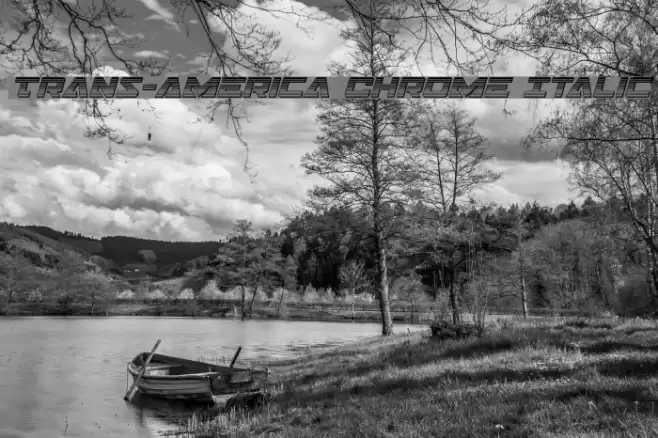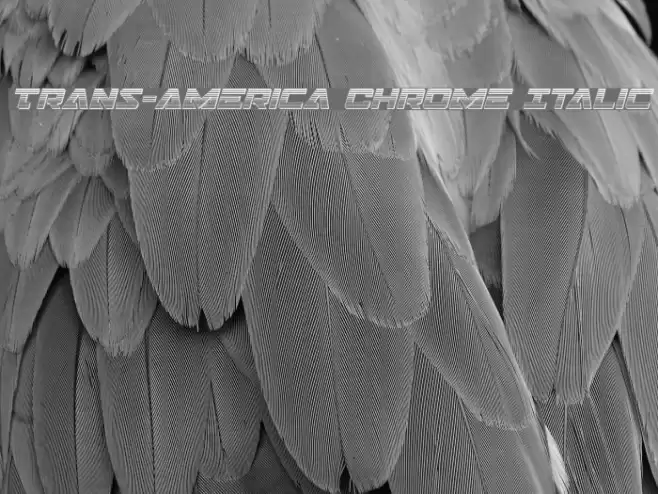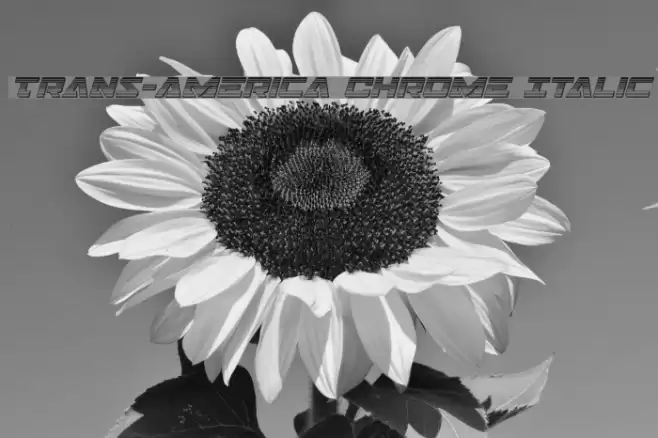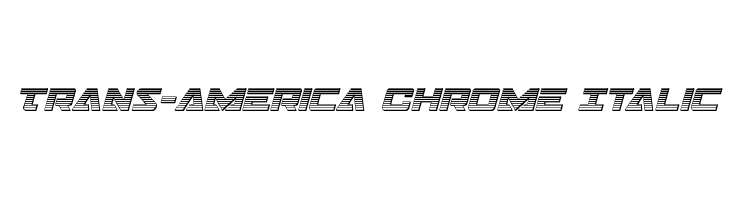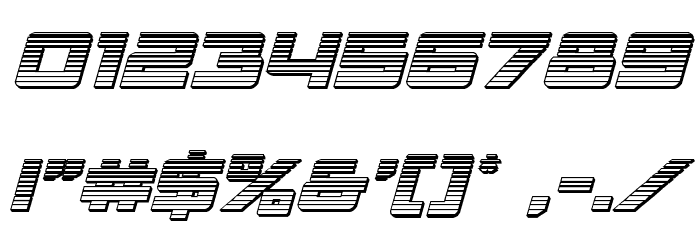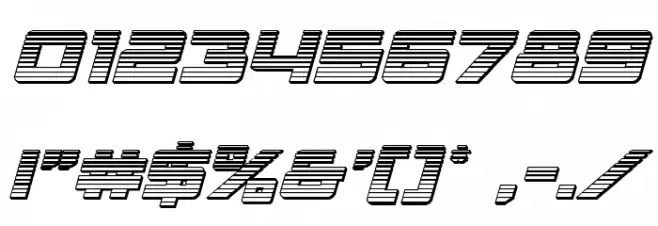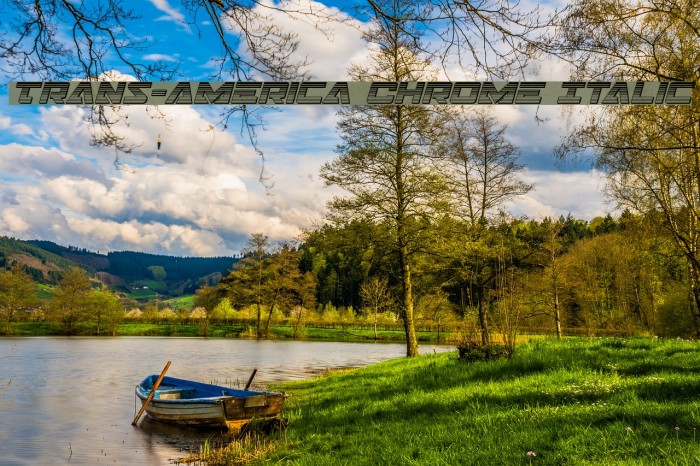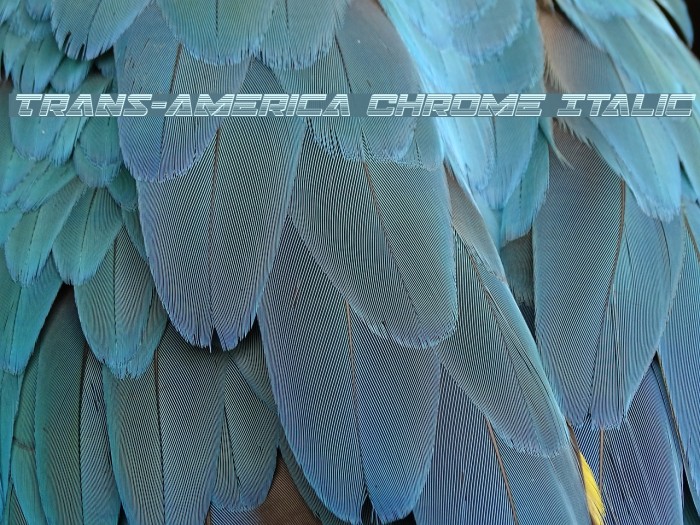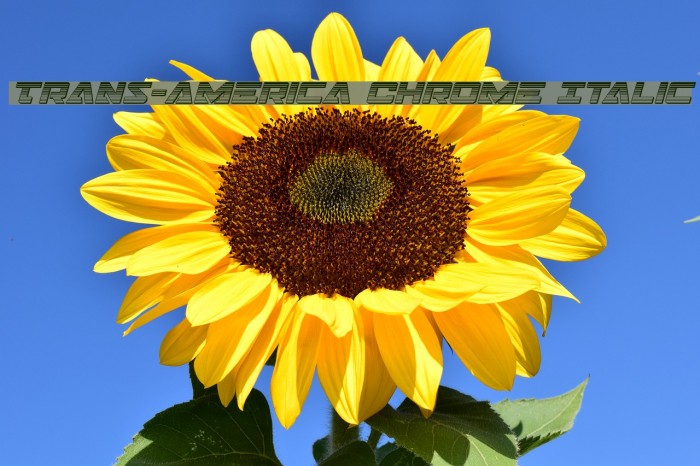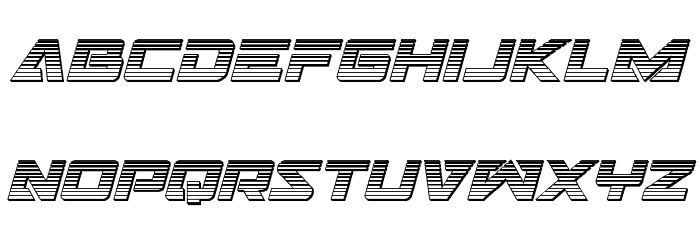
Trans-America Chrome Italic Font
Trans-America Chrome Italic Description
This font features a bold, futuristic design with a distinct chrome-like appearance. The characters are italicized, giving them a dynamic and forward-leaning stance. Each letter is composed of multiple parallel lines, creating a striped effect that enhances the metallic look. The uppercase and lowercase letters maintain a consistent style, with sharp angles and geometric shapes. Numbers and special characters are designed to match the overall aesthetic, ensuring uniformity across all text elements. The font's unique style makes it ideal for projects that require a modern and edgy look.
A bold, italicized font with a futuristic, chrome-like appearance and striped design from Uncategorized fonts.
- Proposed Projects: Ideal for sci-fi themed designs, technology branding, video game titles, and futuristic posters.
- Overall Style: Futuristic